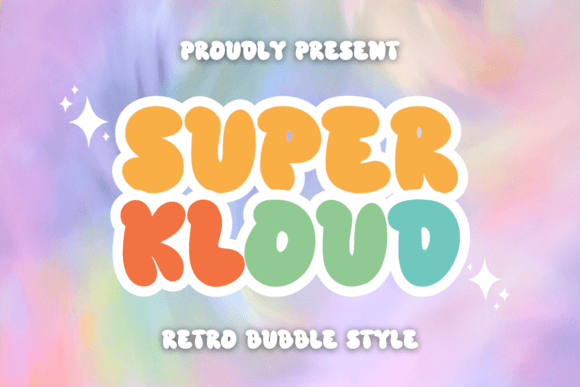
Introducing Super Kloud Font, a display font that's as cute and fun as a bubble bath! This font is a delightful blend of playful curves and stylish boldness, making it perfect for a wide range of creative projects.
Whether you're designing a food logo, creating a children's shirt, or crafting a whimsical birthday invitation, Super Kloud Font will add a touch of charm and personality to your work. Its unique and eye-catching style is sure to make your creations stand out from the crowd.
Imagine your designs adorned with Super Kloud Font's expressive characters. Food logos will pop with vibrant playfulness, children's shirts will become irresistibly adorable, and birthday invitations will spark excitement and joy in the hearts of your guests.
Super Kloud Font's versatility doesn't stop there. It's perfect for everything from funny stickers and thought-provoking quotes to vibrant event posters and eye-catching flyers. Unleash your creativity and let Super Kloud Font transform your designs into masterpieces that captivate and delight.
Features:
* Playful and bubbly style
* Perfect for a variety of creative projects
* Eye-catching and unique
* Adds charm and personality to your designs
* Versatile and easy to use